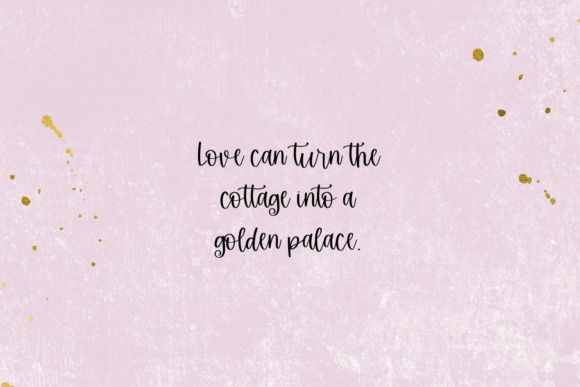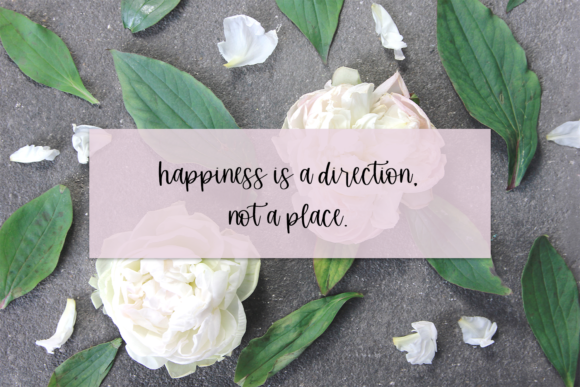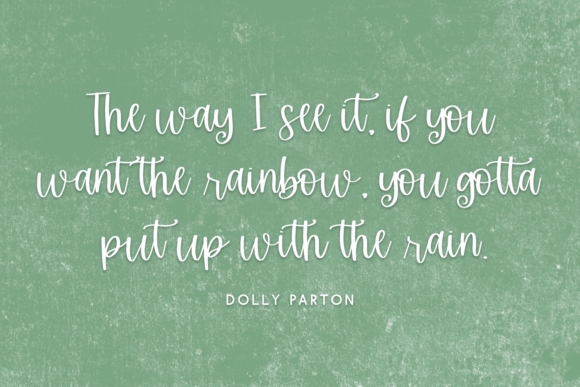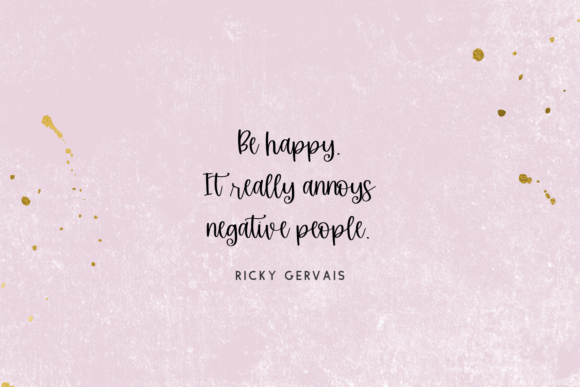
About Stirling Cottage Script Font
Stirling Cottage Script is a delicate and elegant handwritten font. Its distinct and well balanced letters make this font a masterpiece. Fall in love with its incredibly versatile style and use it to create spectacular designs!